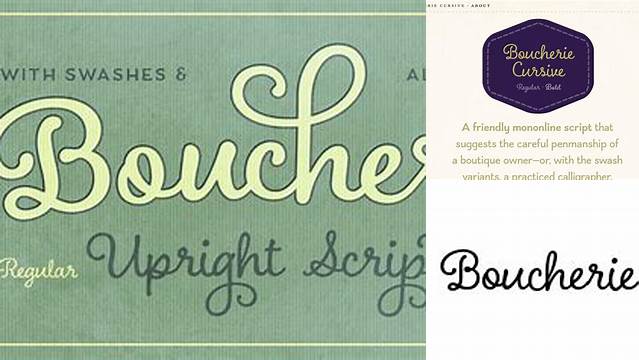
Hey guys! If you're on the hunt for a stylish and elegant font, look no further than the Boucherie Cursive! This beautiful font, with its flowing strokes and vintage charm, is perfect for a wide range of projects. And the best part? You can download Boucherie Cursive for free! In this article, we'll dive deep into everything you need to know about this fantastic font, including where to find it, how to use it, and some inspiring ways to incorporate it into your designs. Get ready to elevate your creative projects with the timeless appeal of Boucherie Cursive!
The Allure of Boucherie Cursive: Style and Characteristics
What makes Boucherie Cursive so special, you ask? Let's talk about its allure! This font exudes a sense of elegance and sophistication, making it a perfect choice for projects that aim to convey a touch of vintage charm or classic appeal. The characteristics of Boucherie Cursive are its flowing, interconnected letterforms. These elegant, slightly angled letters create a fluid and organic look, resembling handwriting. The details in the curves and swirls of the font add a touch of personality and visual interest that can instantly make your designs stand out. The font's design typically incorporates a variety of ligatures (joined letter pairs) that enhance the cursive script's overall flow and authenticity. Boucherie Cursive often includes a full character set, offering various stylistic alternatives and special characters that give you a wide range of design options. The font's versatility allows it to adapt to a variety of applications, from formal invitations and wedding cards to branding and packaging. The font is generally optimized for readability, meaning that, despite its decorative appearance, the letters are crafted to ensure that the text is easy to read, especially in headings or short paragraphs. The combination of its vintage aesthetic, elegance, and readability makes it a preferred choice for many designers. Its timeless appeal continues to make it a favorite for any design project.
Best Uses for Boucherie Cursive Font in Your Designs
So, where does Boucherie Cursive really shine? This font is a versatile choice, and its elegant aesthetic lends itself to a wide range of design applications. Due to its vintage feel and refined appearance, Boucherie Cursive is often ideal for invitations, greeting cards, and announcements. It adds a personal touch and a sense of sophistication to these materials. The font is perfect for wedding invitations, adding a romantic and classic touch to the design, complementing the overall tone of the event. Boucherie Cursive can also be used for branding and logos, especially for businesses aiming to convey a sense of luxury, tradition, or handcrafted quality. Its distinctive style can help you create a unique brand identity that stands out. In addition, the font is appropriate for quotes, headlines, and short text blocks in print and digital media. It adds visual interest and draws attention to important phrases or statements. You can use the font for packaging design, especially for products that aim to have a vintage or artisanal feel. The cursive style can enhance the perceived value and aesthetic appeal of the product. Do you create posters and flyers? Boucherie Cursive would make for an attractive addition. It can be useful for creating a vintage look, enhancing the overall aesthetic, and effectively conveying the message. The font is a great fit for a range of projects, including menus, signage, social media graphics, and many more. Its flexibility allows you to use it creatively to enhance your design. Use Boucherie Cursive to add a touch of class and elegance to your projects.
Enhancing Readability: Typography Tips for Boucherie Cursive
While Boucherie Cursive is a beautiful font, its flowing and decorative nature requires careful consideration to ensure readability. Here are some typography tips to make the most of this font: Choose the right size: Opt for a larger font size, particularly for headlines and titles. This helps the font's details shine through and ensures the text is easy to read. Avoid long blocks of text: Boucherie Cursive is not always ideal for extensive paragraphs or body text. Due to its decorative nature, it can become difficult to read in large chunks. Use it sparingly for headings, short phrases, or specific words. Consider the context: Evaluate where you're using the font. If the context is formal and elegant, Boucherie Cursive fits in perfectly. But in more casual settings, you may want to be more conservative with it. Adjust the kerning: Adjust the spacing between letters to prevent them from overlapping or appearing too far apart. Proper kerning enhances the readability of the font, particularly in headlines and titles. Use it with complementary fonts: Combine Boucherie Cursive with a more neutral or sans-serif font for body text. This provides contrast and helps balance the overall design. Consider color and contrast: Ensure that the font color contrasts with the background to improve readability. Avoid using it on backgrounds with complex patterns or textures. By following these typography tips, you can maximize the visual appeal and readability of Boucherie Cursive, making your designs both beautiful and user-friendly.
Boucherie Cursive vs. Similar Cursive Fonts: A Comparison
When you're exploring cursive fonts, it can be useful to compare Boucherie Cursive with other similar options to find the best fit for your project. Let's examine some of the key differences and similarities to help you make an informed decision. Boucherie Cursive has a distinctive style with elegant, flowing strokes. Other cursive fonts vary greatly in style. Some may have more exaggerated flourishes, while others may have a simpler, more modern look. Consider the aesthetic you are trying to create and choose the font that best reflects that style. Another important point is the weight and style. Boucherie Cursive often comes in various weights (e.g., regular, bold), allowing for greater versatility in design. Some fonts offer more style options, such as italic or condensed versions. Examine the available options and consider the overall design needs. Additionally, consider the font's readability. While all cursive fonts are inherently decorative, some fonts are easier to read than others. Boucherie Cursive aims to balance elegance and readability. Examine the overall readability of the font, particularly in headlines and short text blocks. Look at the character set and language support. Some cursive fonts may include a comprehensive character set, including special characters and ligatures, that can enhance design flexibility. Verify that the font provides support for the languages you'll be using. Finally, evaluate the licensing and cost. Consider the licensing terms and the cost of the font, particularly if it's a premium font. When choosing between Boucherie Cursive and other cursive fonts, you can choose the font based on your design needs.
Creating Stunning Logos with Boucherie Cursive
Boucherie Cursive is a fantastic choice for creating logos, adding a touch of elegance, sophistication, and vintage charm that can make your brand stand out. However, here's how to create amazing logos with Boucherie Cursive: First, identify your brand's personality. Boucherie Cursive works best when representing a brand that aims to convey luxury, heritage, or a handcrafted aesthetic. Think about the brand's overall message and values, and ensure Boucherie Cursive aligns with your brand's identity. Second, pick a complementary color palette. Use colors that complement the font, evoking the right mood and emotions. Neutral tones (e.g., black, white, and gray) add a touch of class. Combine it with gold, burgundy, or navy for a more luxurious aesthetic. The proper color palette enhances the impact of Boucherie Cursive. Third, use the font judiciously. The use of cursive fonts in logos is at its best for the brand name itself or a key tagline. Avoid using it for extensive text. Create visual balance, using the font as a focal point that's not overwhelmed by other elements. Fourth, choose the right layout and composition. Experiment with various layouts and compositions to create a visually appealing logo. Consider how the text interacts with the other logo elements, such as images, icons, and graphic symbols. Ensure that the overall composition is balanced and harmonious. In addition, test and refine. Always test how the logo appears in various contexts (on different backgrounds, sizes, and applications). Get feedback and make adjustments to ensure that the logo is legible and visually appealing in all situations. By following these steps, you can create a stunning logo with Boucherie Cursive, making a lasting impact on your audience.
Mistakes to Avoid When Using Boucherie Cursive
To ensure your design is a success, avoid common mistakes. Here are mistakes to avoid: Don't overuse the font. Choose the right color. By avoiding these mistakes, you can guarantee a successful design. The font is a great tool when used properly.
The Future of Boucherie Cursive in Design: Predictions and Possibilities
The font will always be useful. Consider future possibilities: There will be new design possibilities. The font's design is timeless. The font is a versatile tool.